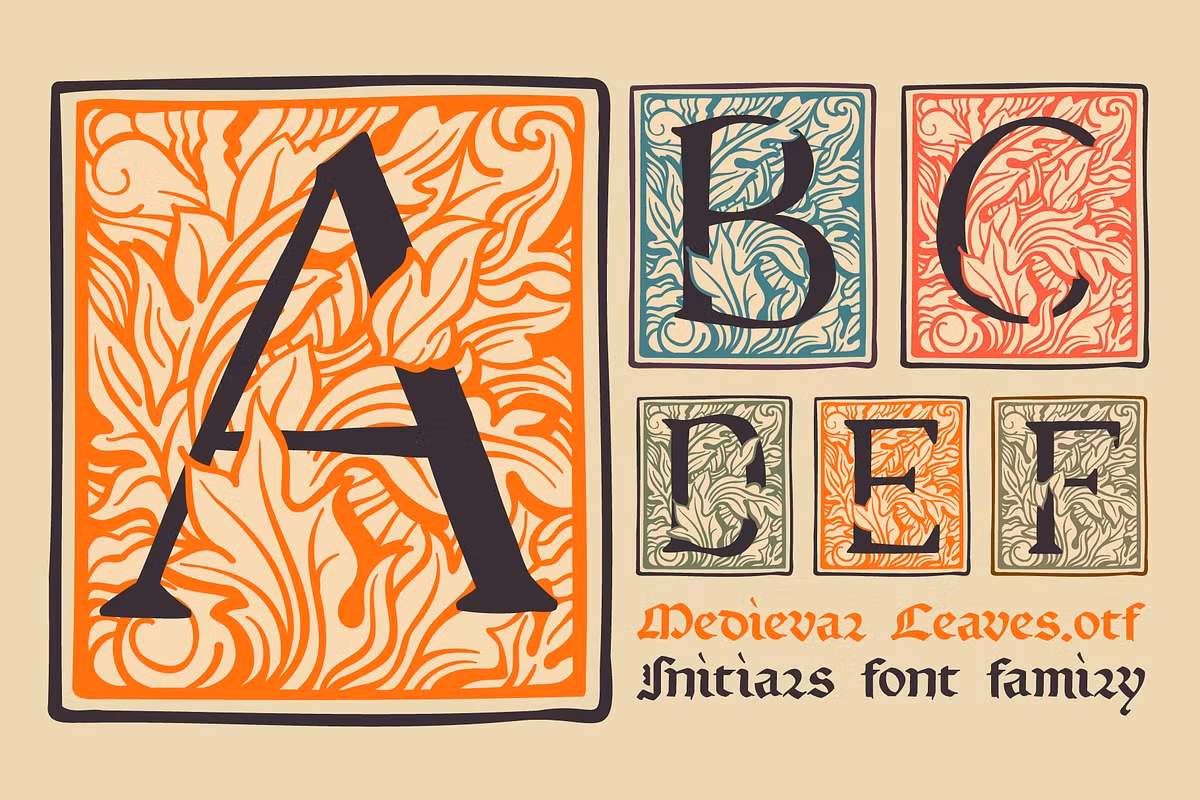
Bring a touch of medieval elegance to your designs with Medieval Leaves Colored Initials Set Font Free Download. This ornate font set features intricate, hand-drawn letterforms adorned with detailed, leaf-inspired flourishes—perfect for creating vintage book designs, medieval-style invitations, logo designs, and other projects that require a touch of historical charm.
The Medieval Leaves font features colored initials with stunning detail, making each letter a work of art. It includes uppercase letters and special characters designed for use as decorative initials, ideal for adding character to the start of your paragraphs, headers, or designs.